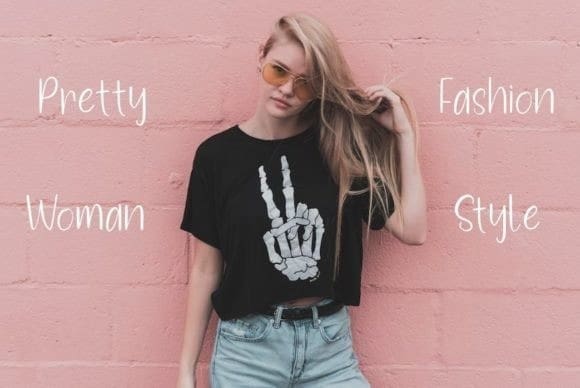
Feminism Font
Feminism Font is a playful and quirky display font that will lighten up each of your designs. This font is perfect for Feminism-themed designs, especially when combined with bright colors.